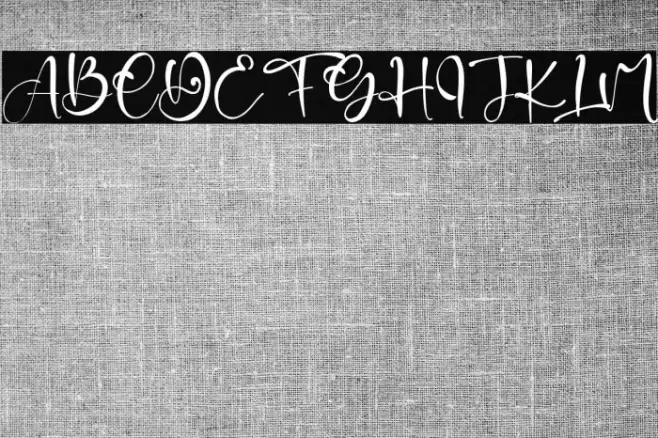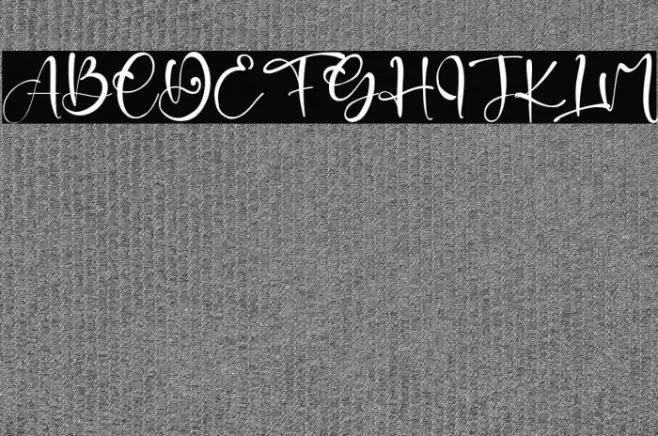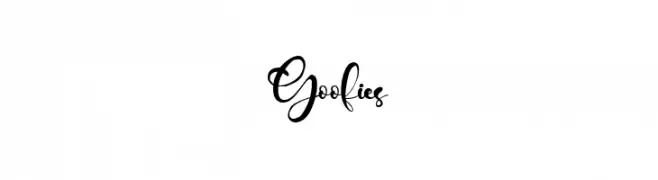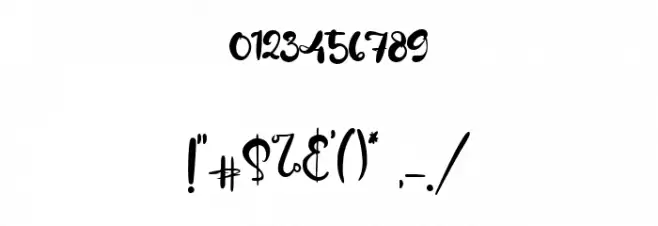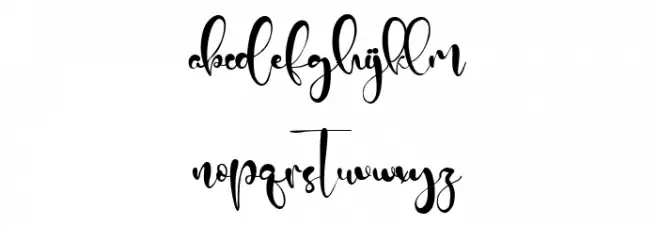
Goofies Font
Goofies Description
This font features an elegant and flowing script style, characterized by its smooth, cursive strokes and artistic flair. The uppercase letters are grand and sweeping, with intricate loops and flourishes that give a sense of movement and grace. The lowercase letters maintain a consistent style, with a playful yet sophisticated appearance. The numerals are bold and clear, matching the overall aesthetic. Special characters are creatively designed, adding to the font's decorative appeal. This font exudes a sense of elegance and creativity, making it suitable for artistic and formal applications.
An elegant, flowing script font with artistic flourishes from Uncategorized fonts.